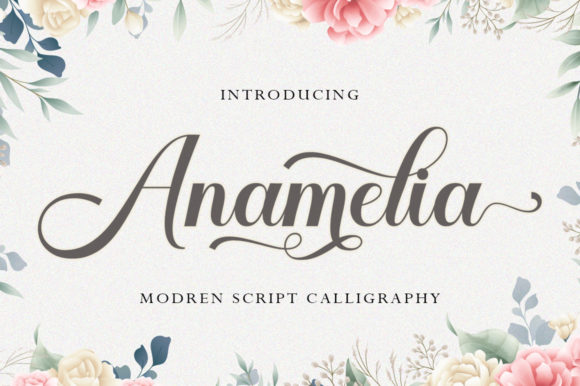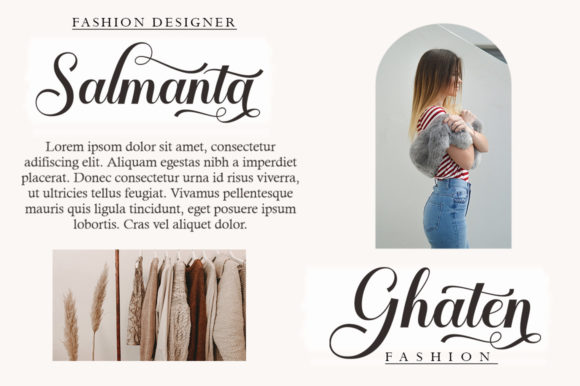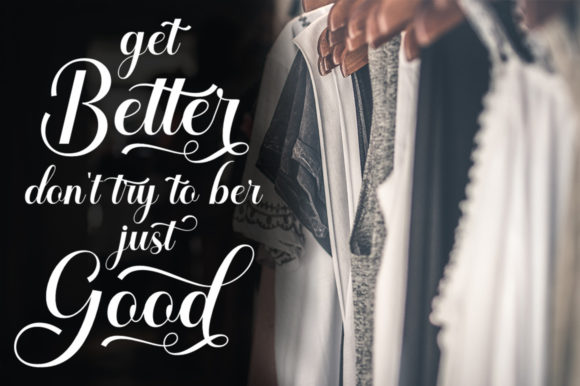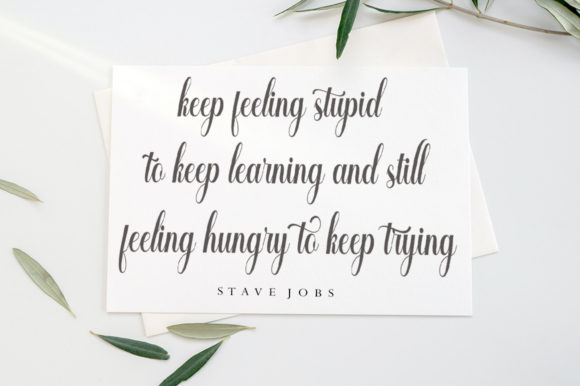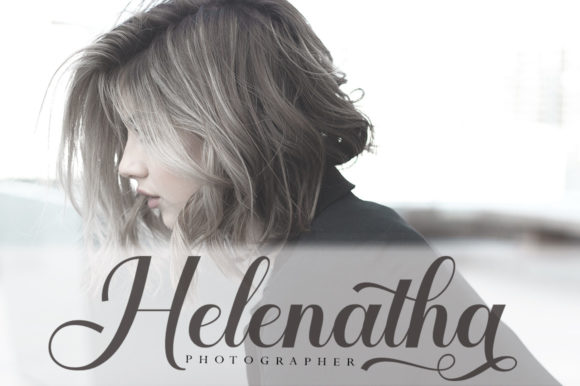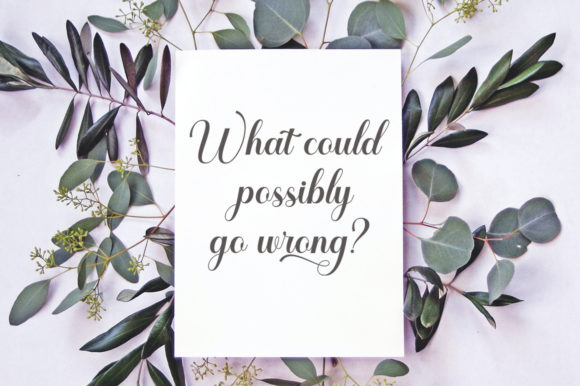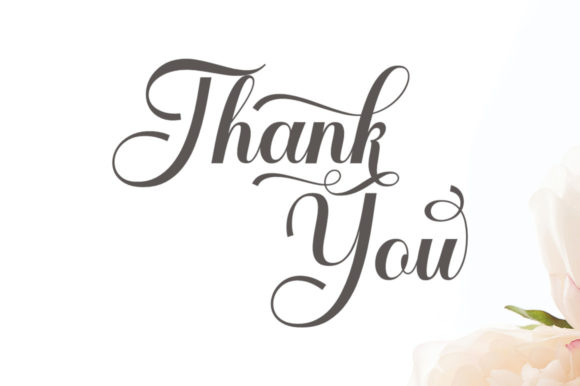
Anamelia Font
“Anamelia Script” emerges as a calligraphy font exuding a classic style adorned with a touch of elegance. Inspired by the handwriting found in ancient manuscripts, this font has been meticulously crafted to harmonize seamlessly. Its versatility makes it well-suited for a range of applications, including wedding media, book covers, greeting cards, logos, branding, business cards, certificates, and any design work that demands a classic, formal, or luxurious touch.
The timeless charm of “Anamelia Script” lends itself beautifully to wedding-related materials. Whether gracing wedding invitations or adorning wedding programs, the font’s classic and elegant strokes elevate the overall aesthetic, imparting a sense of sophistication to the celebration.
In the realm of literature and publishing, “Anamelia Script” finds its place on book covers, bringing a touch of antiquity and refined beauty. The font’s classic appeal resonates with readers, setting the tone for the narrative within.
Greeting cards designed with “Anamelia Script” become exquisite expressions of well-wishes and sentiments. The font’s elegant curves and fluid strokes enhance the emotional impact of the messages conveyed, creating memorable and cherished moments.
For businesses seeking a logo or branding with a touch of timeless sophistication, “Anamelia Script” proves to be an excellent choice. Its classic style communicates a sense of reliability and permanence, fostering trust and credibility.
The font’s adaptability extends to certificates and official documents, where its formal and luxurious appearance adds an air of prestige. “Anamelia Script” transforms these documents into visually striking pieces that reflect a commitment to excellence.
Overall, “Anamelia Script” stands as a testament to the enduring allure of classic calligraphy. Its carefully curated design captures the essence of ancient manuscripts while offering a versatile and timeless option for a wide array of design projects. Whether gracing wedding materials, literature, greeting cards, branding, or certificates, “Anamelia Script” adds a touch of elegance and sophistication to each creation.